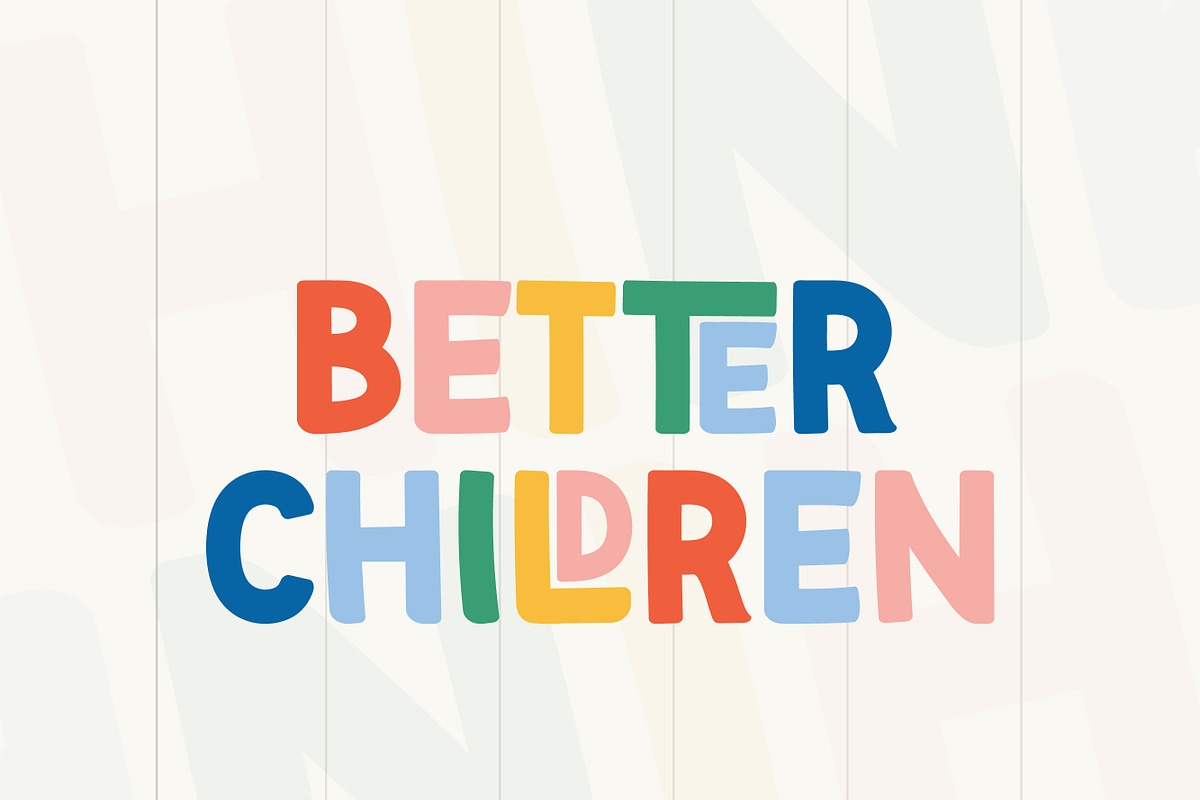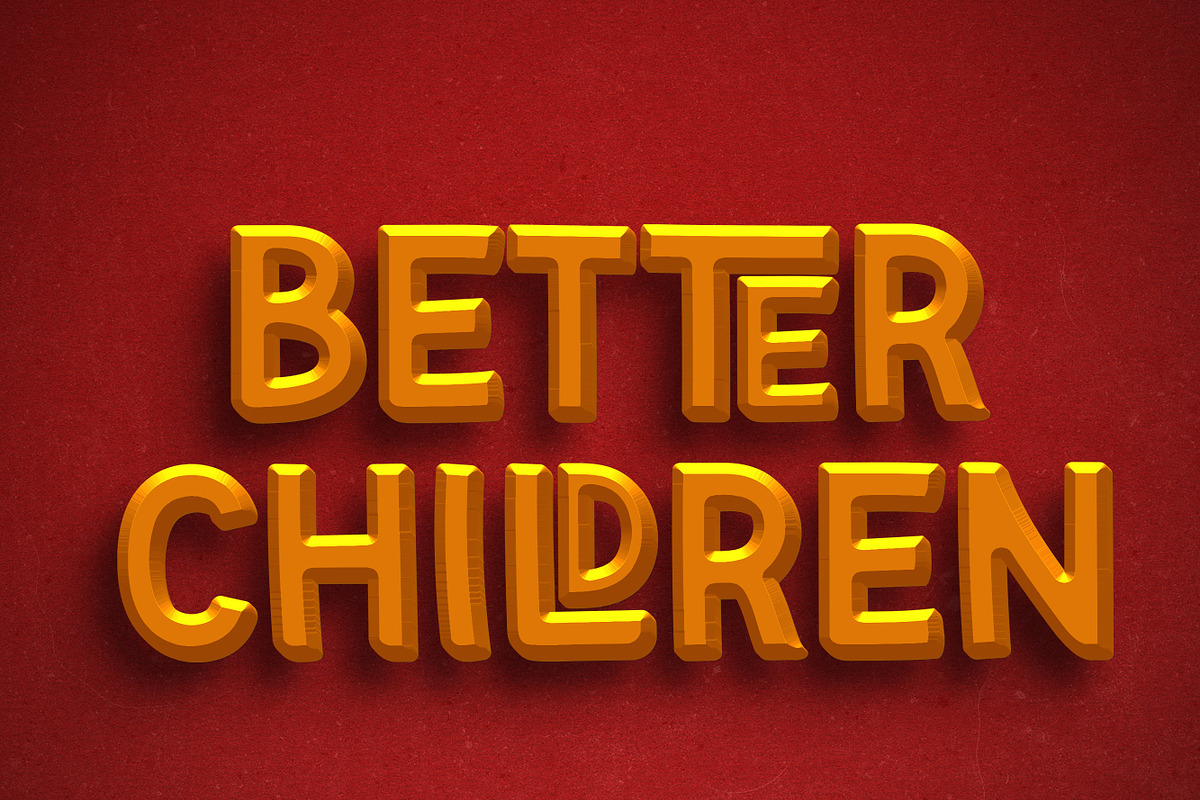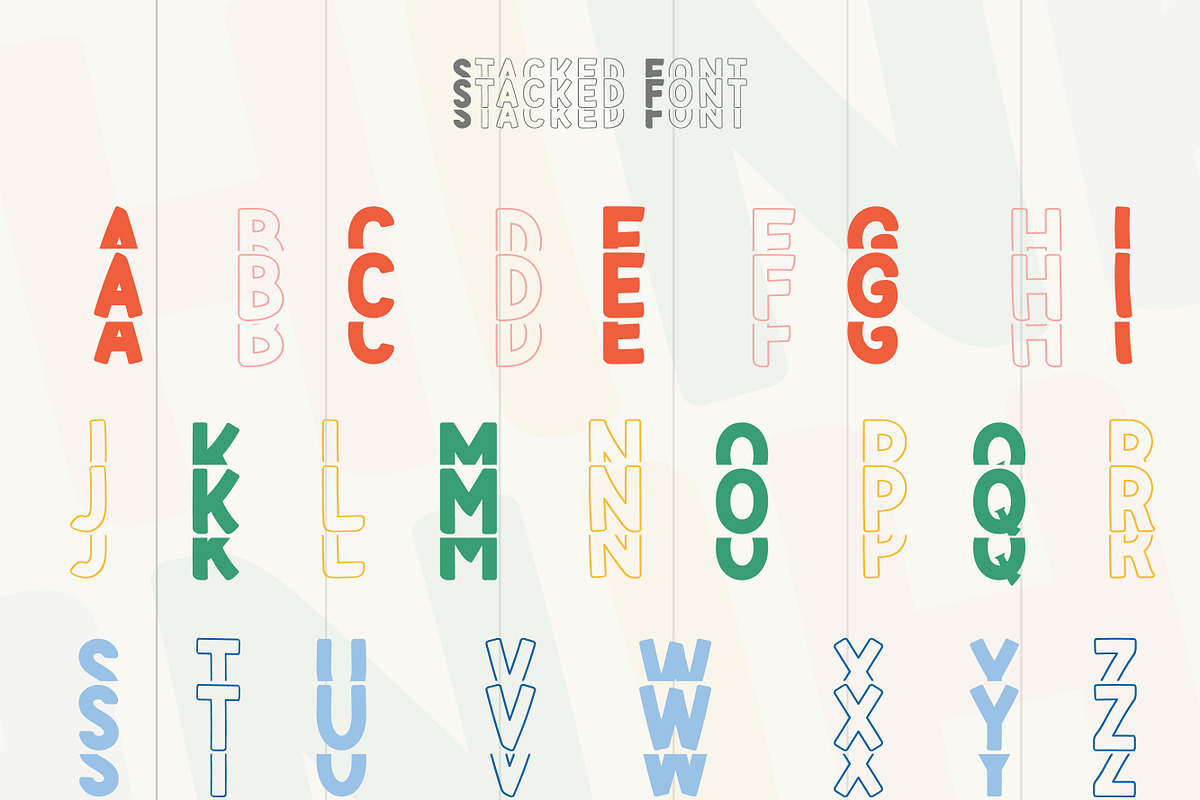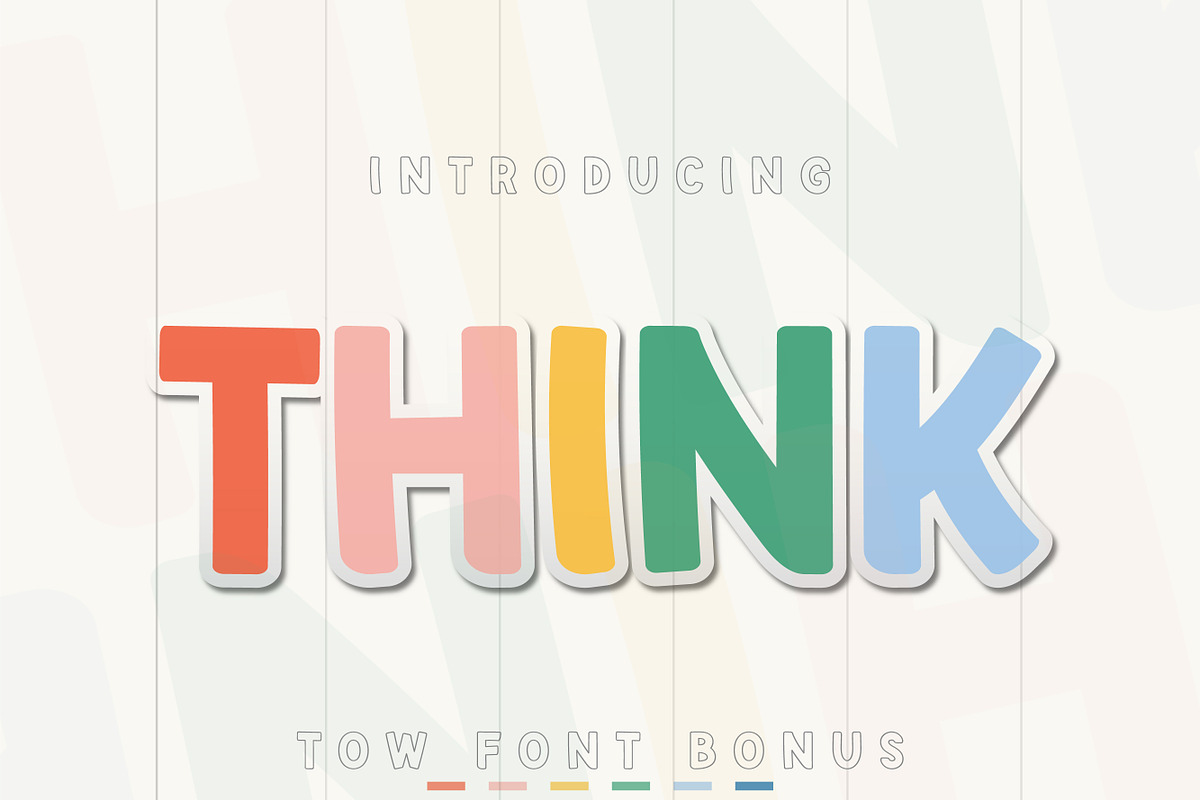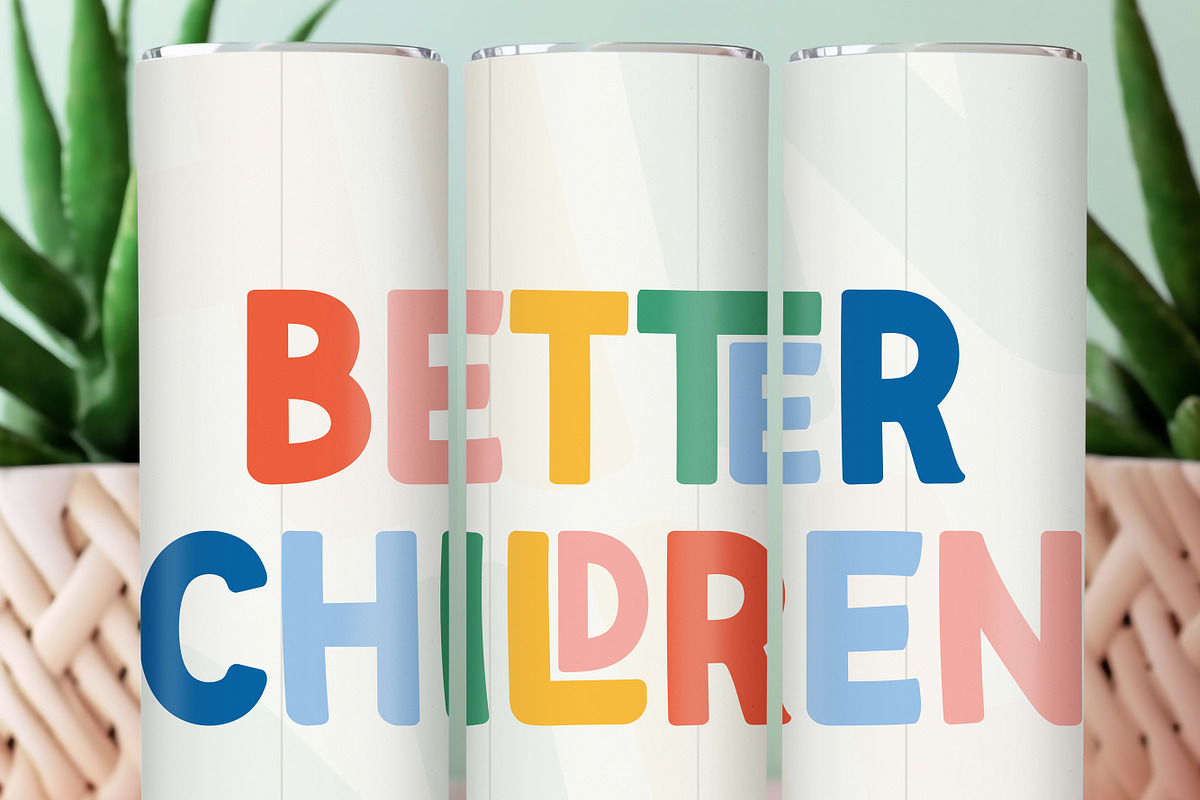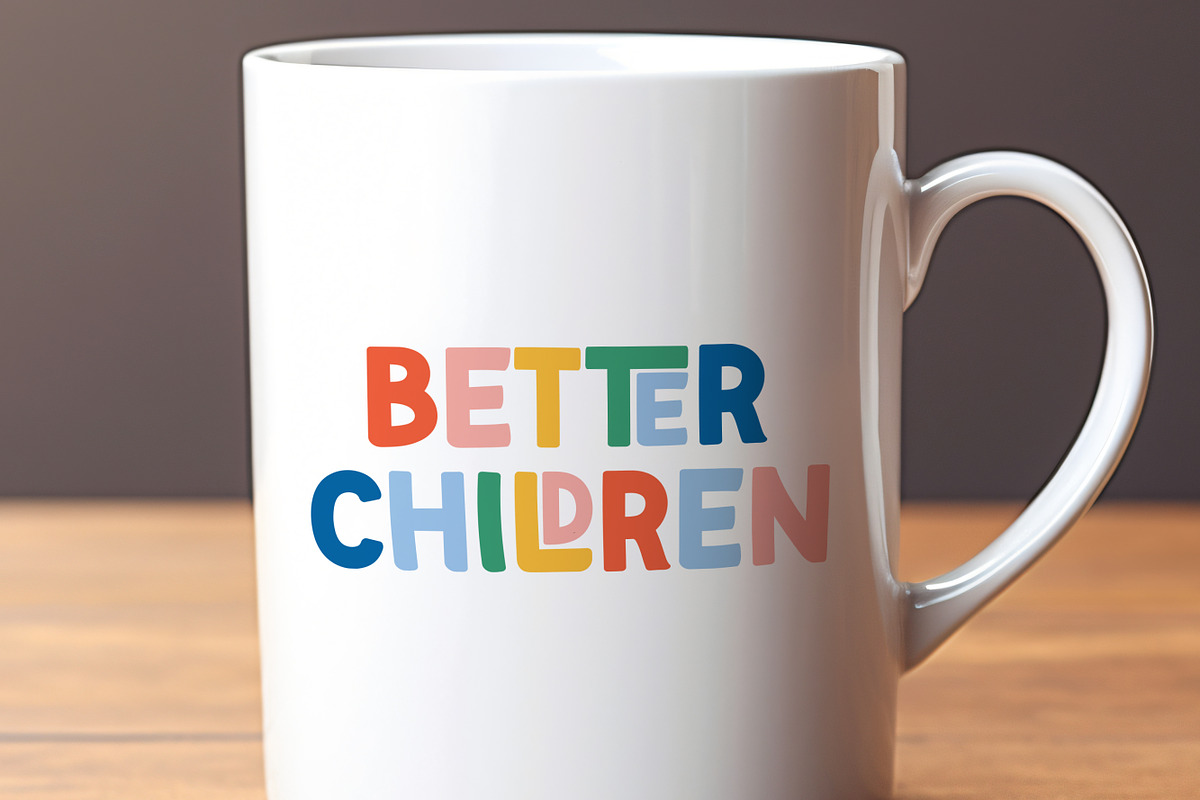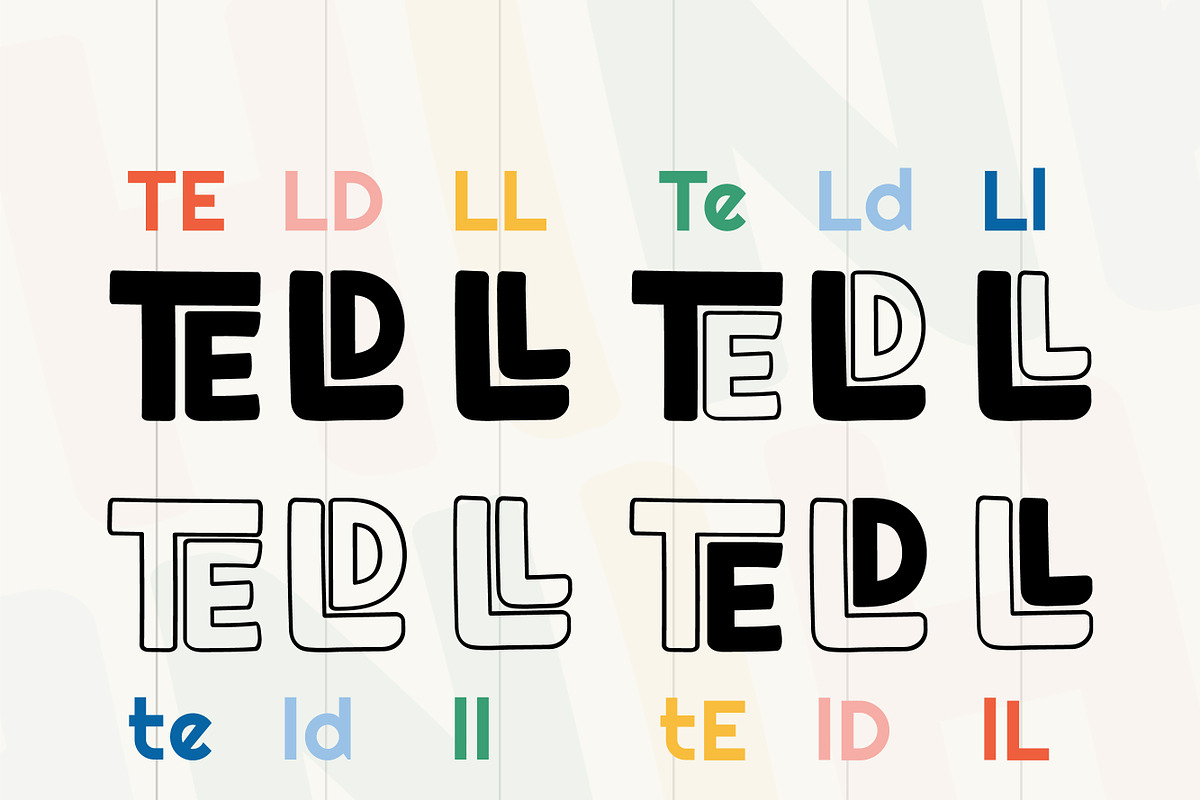
Think -Cute and Playful Handwritten
Think is a trendy font that has a very strong distinctive character and is elegant to use. It will add elegance and smooth letters, each letter tells a story, inviting you to immerse yourself in the art of expression of your design projects.